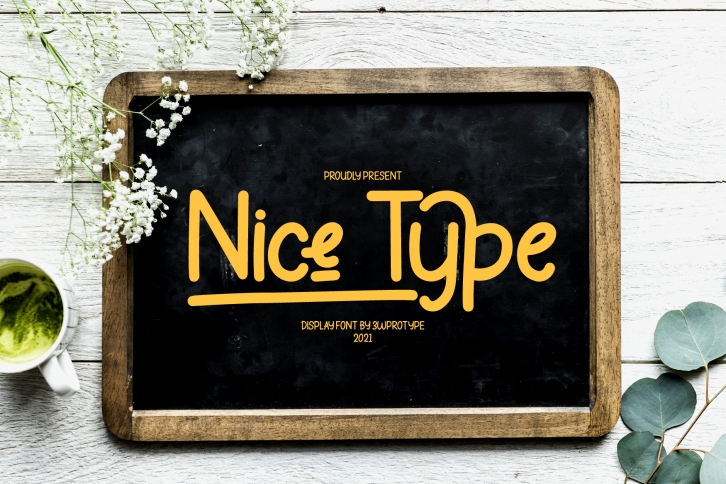
Nice Type is a fun, relaxed, and natural display font. This concise typeface is perfect for logos, invitations, labels, magazines, books, greeting/wedding cards, packaging, fashion, make up, stationery, novels, labels, advertisements, and so much more.